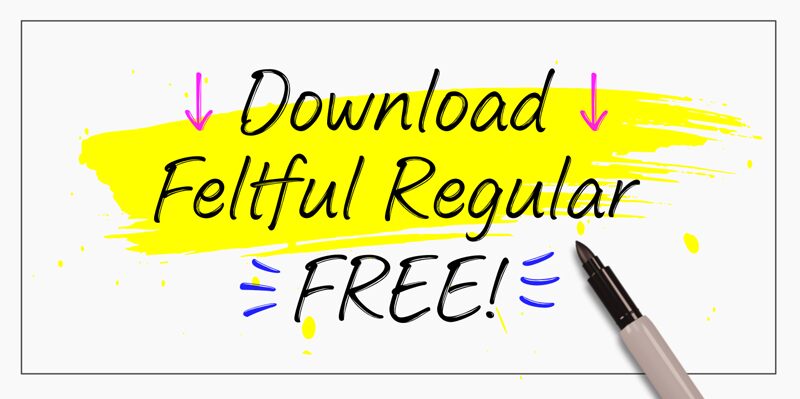
Feltful, a captivating handwritten font crafted by Jess Latham, exudes a bold, dynamic energy that commands attention. This marker-style typeface boasts striking irregularities and expressive curves, creating a sense of effortless movement and organic charm. The uneven strokes and playful ligatures lend a distinct, handcrafted aesthetic, evoking a sense of authenticity and individuality.
Feltful's versatility makes it a compelling choice for various design applications, from editorial layouts and brand identities to product packaging and digital interfaces. Its expressive nature lends itself particularly well to headlines, subheadings, and attention-grabbing elements, inviting the viewer to engage with the content in a more personal and impactful manner.